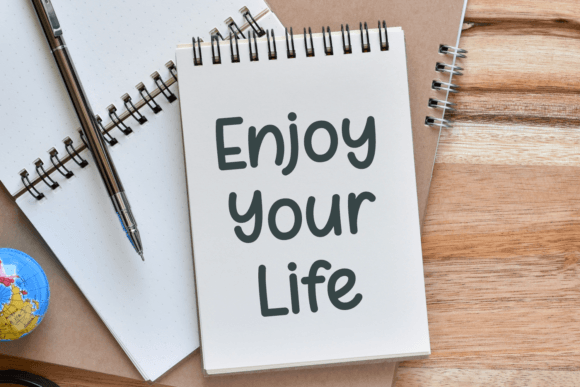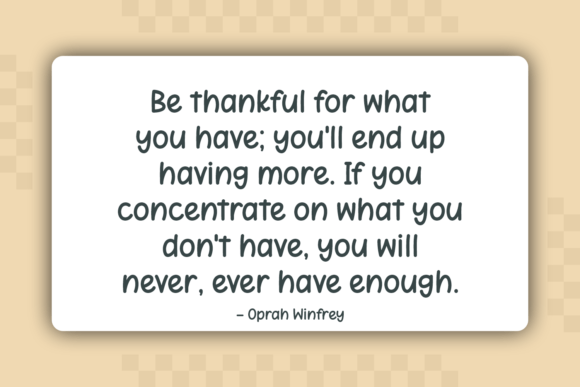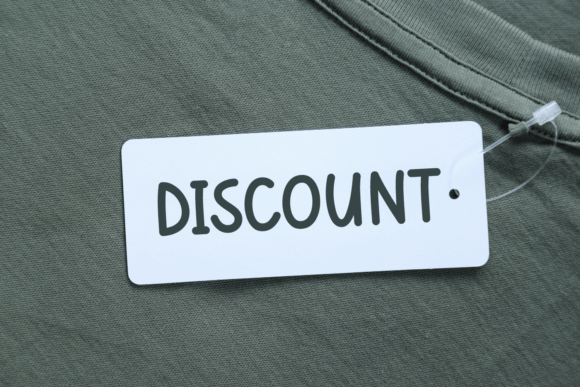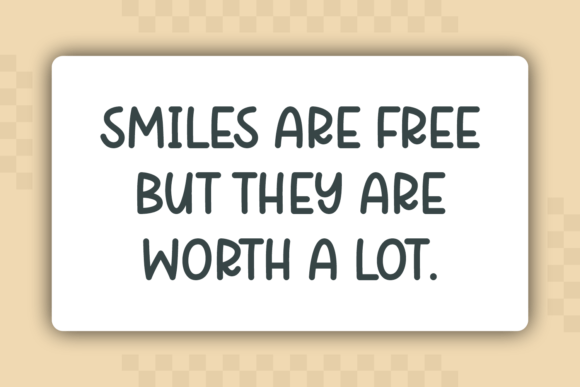
Introduction to Lucky Master Font
Have you ever been working on a creative project, pouring your heart and soul into it, only to feel like something’s missing? That’s where the right design resource comes in – a font that can elevate your entire aesthetic and leave a lasting impression. For designers, finding the perfect font can be a game-changer, and that’s exactly what the Lucky Master Font offers.
This delightful handwritten font is more than just a pretty face; it’s a versatile tool that adds an engaging twist to even the cleanest of minimalist designs. With its transparent background and high-quality aesthetic, it’s the perfect addition to any creative project. Whether you’re working on product packaging, a logo, or a web design, the Lucky Master Font is an excellent choice for designers looking to add a touch of personality to their work.
Key Features of Lucky Master Font
- High-quality design resource ideal for creative projects requiring a modern, elegant look.
- Unique, hand-drawn design elements and intricate details create a visually striking effect, perfect for adding a touch of sophistication to any project.
- Includes a comprehensive character set, including uppercase and lowercase letters, numbers, and special characters, for a wide range of design applications.
Honest Review: Lucky Master Font
I recently stumbled upon the Lucky Master Font, and I must say it’s been a great addition to my design resource library. The font’s versatility and stylish aesthetic make it perfect for any creative project.
- ✨ High-quality design: The font’s crisp and clean lines give it a professional look.
- ✨ Customization options: The transparent background allows for seamless integration into any design.
However, I do have some reservations:
- ⚠️ Limited language support: Unfortunately, the font only supports a few languages, which may be a limitation for some designers.
- ⚠️ Not ideal for small text: The font’s bold design makes it less suitable for small text or detailed work.
Overall, I’m impressed with the Lucky Master Font. While it may not be perfect, its high quality and customization options make it a valuable addition to any design library. If you’re looking for a stylish font for your creative project, I’d definitely recommend giving it a try.
The Lucky Master Font is ideal for a variety of design projects including business cards, brochures, and websites. Its high quality and versatility make it a popular choice among designers. With the transparent background, you can easily place the font over images or other design elements, making it perfect for creative projects.